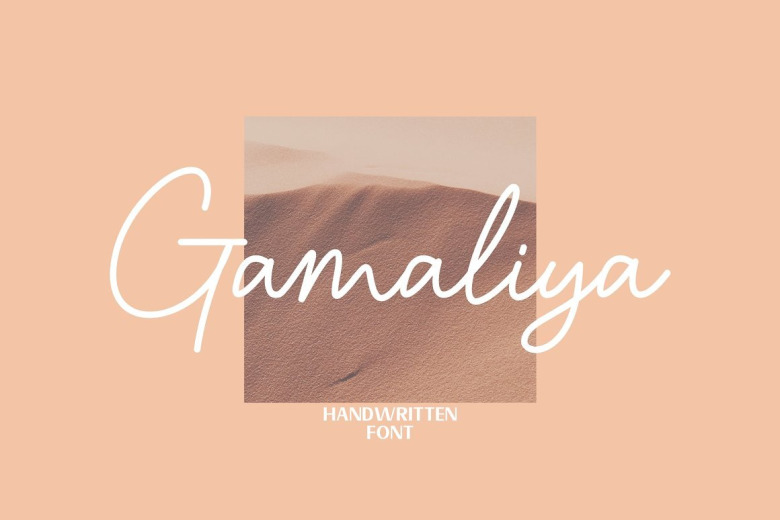
Gamaliya Font
Gamaliya is a beautiful, well balanced and vintage styled script font. It is defined by smooth curves and is perfect for fashion branding or editorial designs. Add it confidently to your projects, and you will love the results. Gamaliya is PUA encoded which means you can access all of the amazing glyphs and ligatures with ease!